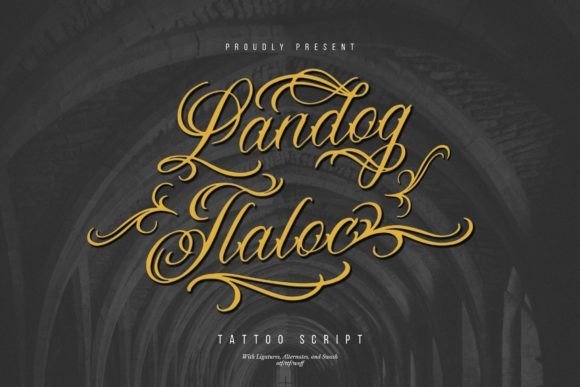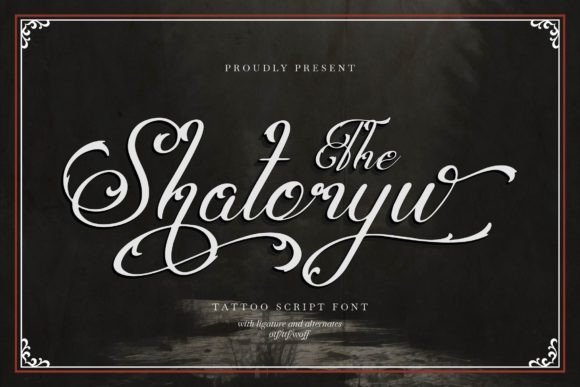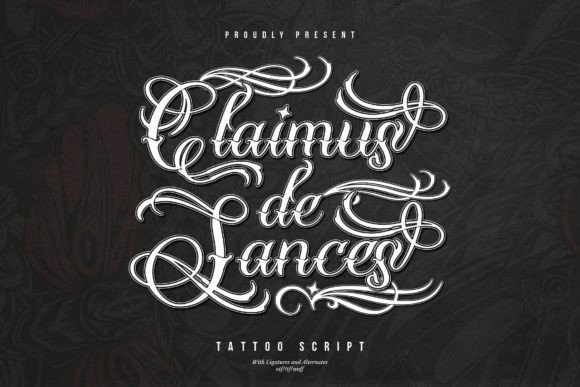
46 Elegant Tattoo Script Fonts for Nostalgic Nameplates and Hand-Lettering in 2026
Tattoo script fonts are the first choice when you want lettering that reads like handwriting but shows clear personality. This article presents 46 curated styles, grouped by vibe and edge so you can quickly find scripts suited to names, quotes, or decorative flourishes.
Along the way I cover legibility at small sizes, how stroke weight affects healing, and pairing suggestions for accents and ornaments. Short examples and application notes make it simple to compare looks before you finalize a stencil.
1. Shatoryu Font
Shatoryu Font
Shatoryu pairs long, graceful ascenders with compact lowercase joins to produce a script that reads as both intimate and deliberate. This design sits squarely among Tattoo script fonts with flowing swashes and refined stroke contrast that hold up on skin as well as on print, making names and short phrases feel handcrafted. The letterforms include alternate caps and contextual ligatures that smooth transitions between characters, so words appear cohesive even at small sizes.
On the technical side, Shatoryu benefits from open-type alternates and controlled kerning which help prevent crowded letters when wrapping around curved areas of the body. The fine hairlines are sturdy enough for crisp outlines but call for experienced needle work to preserve detail over time. Use it when you want script with personality-romantic without being fussy-and pair it with a plain sans for tags or packaging that needs contrast.
My Recommendation: I’d pick Shatoryu when a tattoo or a brand needs a personal, calligraphic look that still reads clearly. Its alternates and ligatures make it adaptable for names, memorial pieces, or boutique packaging. It’s ideal for projects that demand warmth and hand-lettered charm without sacrificing legibility.
2. Landog Tlaloc Font
Landog Tlaloc Font
Landog Tlaloc leans into bold, confident strokes that give words weight and presence, which is why it’s frequently used across logos, apparel prints, and product packaging. The letterforms favor compact counters and slightly angled terminals, creating a rugged script flavor that reads well on textured surfaces like fabric and paper. Decorative alternates and splashy capitals make it easy to craft distinctive headlines, nameplates, or event posters.
Technically, this font copes well with heavier ink applications and reproduces cleanly at large scales, so it’s a solid choice for t-shirts, mugs, and signage where clarity matters from a distance. Kerning is generous by default, preventing letters from collapsing when applied to curved layouts or branding stamps. I recommend pairing it with a neutral sans or a distressed serif to keep compositions grounded and readable.
My Recommendation: I use Landog Tlaloc when a project needs bold script energy-think merchandise, posters, or rustic branding. Its strong strokes survive printing and embroidery, and the decorative caps give a handcrafted identity. It’s perfect for creative briefs that call for vintage attitude without losing readability.
3. Claimus De Sances Font
Claimus De Sances Font
Claimus De Sances offers a polished cursive voice that hints at classical calligraphy while remaining approachable for contemporary work. The strokes show moderate contrast and graceful connections, which makes it attractive for short quotations, book covers, and personalized stationery. Small swashes are available as alternates, letting designers add flourish without overwhelming the line of text.
From a craftsmanship standpoint, Claimus De Sances performs well in both digital layouts and skin applications, provided detail is preserved at appropriate sizes. It includes useful ligatures to smooth awkward letter pairings and balances ornament with readability, so phrases flow naturally. Pair it with a light serif for editorial pieces or use it solo for signature-style branding that needs an elegant, timeless feel.
My Recommendation: I favor Claimus De Sances when a refined, slightly formal script is required-wedding invites, premium labels, or editorial headlines come to mind. Its measured contrast and ligatures make text feel composed and intentional. Use it where elegance should read clearly rather than dominate the design.
4. Ettolny Fullkit Font
Ettolny Fullkit Font
Ettolny Fullkit feels like a well-aged tattoo alphabet with generous swashes and confident thick-to-thin strokes that read clearly from a distance. The set mixes formal calligraphic shapes with rough ink textures, giving logos, apparel, and packaging a handcrafted, vintage edge; it sits comfortably among Tattoo script fonts that aim for that retro-ink look.
OpenType features include contextual alternates, ligatures and stylistic sets that reduce repetition in wordmarks while adding artisanal flourish. It handles tight tracking well but benefits from careful kerning on longer phrases, so reserve it for headers, badges and statement pieces rather than running copy.
With 46 varied options, you can match script style to mood, anatomy, and design intent-whether you want a soft, looping cursive or a gritty brush script. Try printable samples at scale and test how each style holds up on curved surfaces and in different placements.
Keep readability, spacing, and stroke contrast in mind when choosing a font for tattoo work. Use the pairing tips and grouping cues here to narrow choices fast and to communicate your vision clearly with your artist.